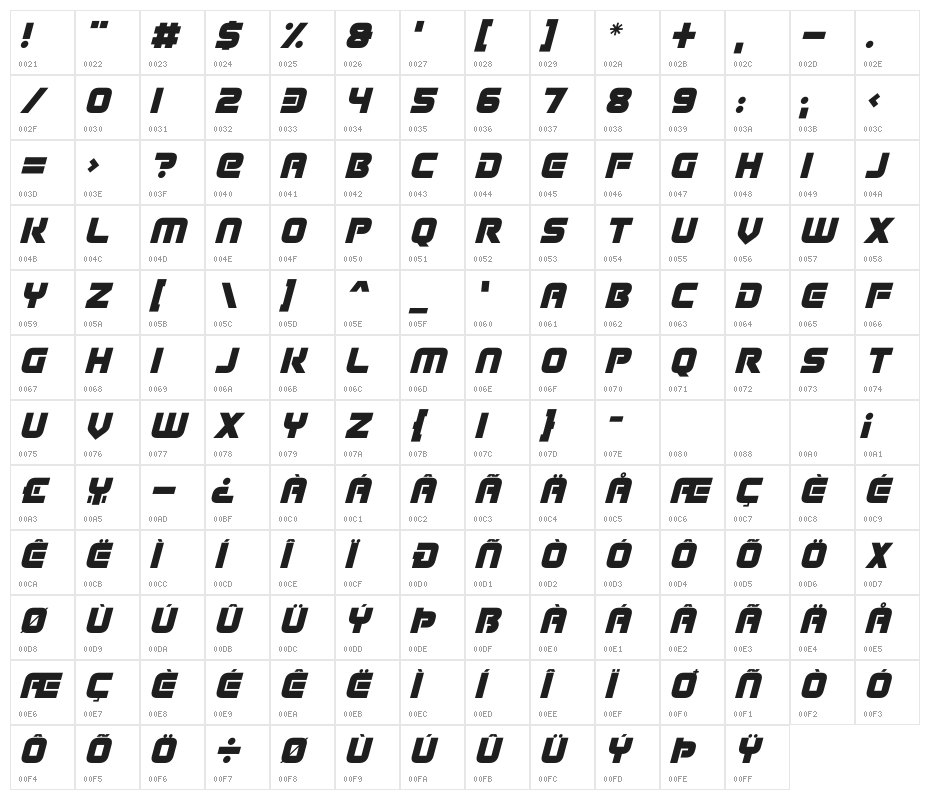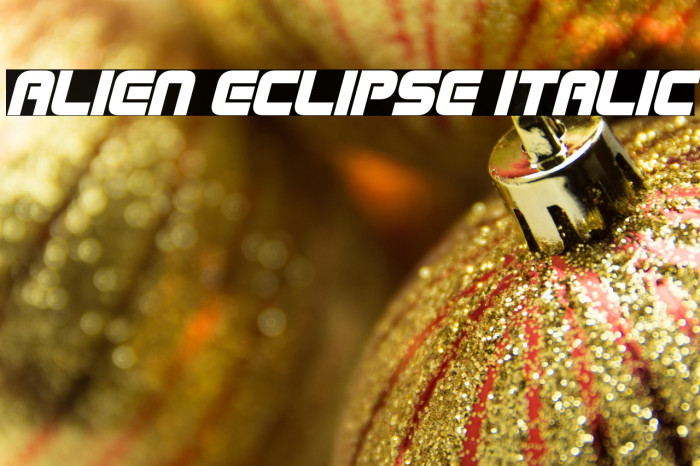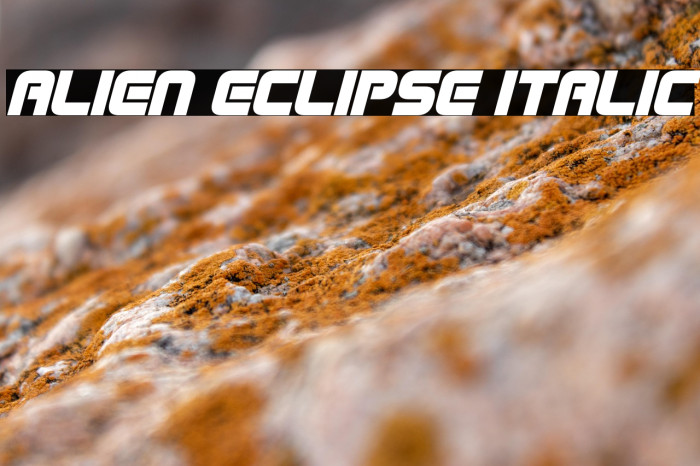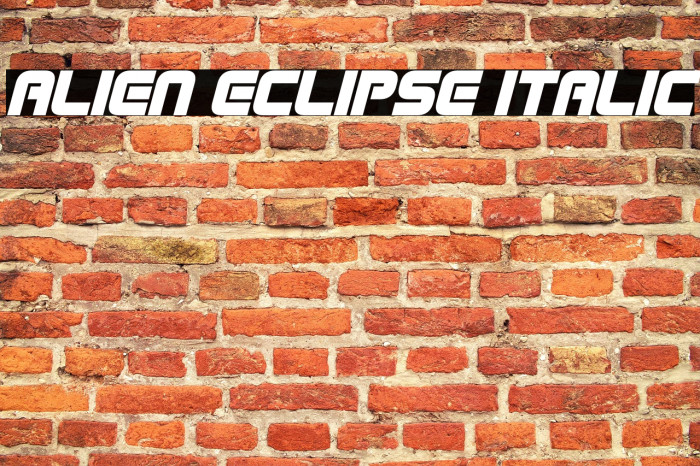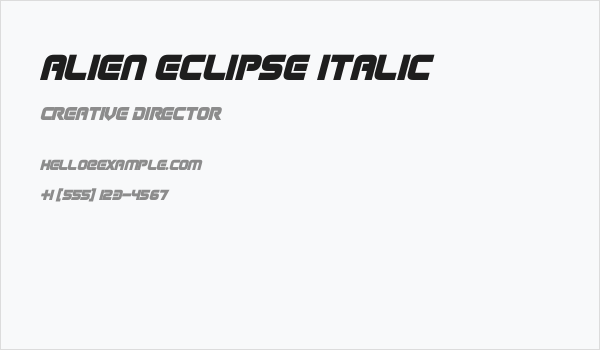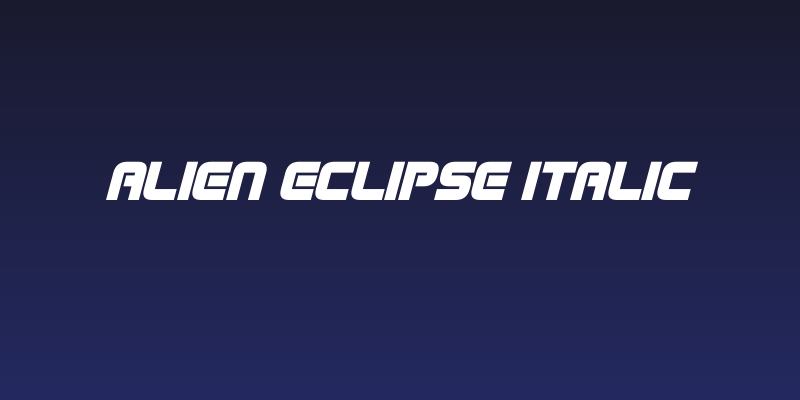
Alien Eclipse Italic Font
Alien Eclipse Italic Description
This font features a futuristic and dynamic design with a strong italic slant, giving it a sense of motion and energy. The characters are bold and angular, with sharp edges and a geometric structure that conveys a modern and tech-inspired aesthetic. The uppercase and lowercase letters maintain a consistent style, while the numerals and special characters are designed to complement the overall look. This font is ideal for projects that require a bold and impactful visual presence, such as technology branding, sci-fi themes, or video game graphics.
| Proposed Projects | Ideal for technology branding, sci-fi themes, video game graphics, and dynamic posters. |